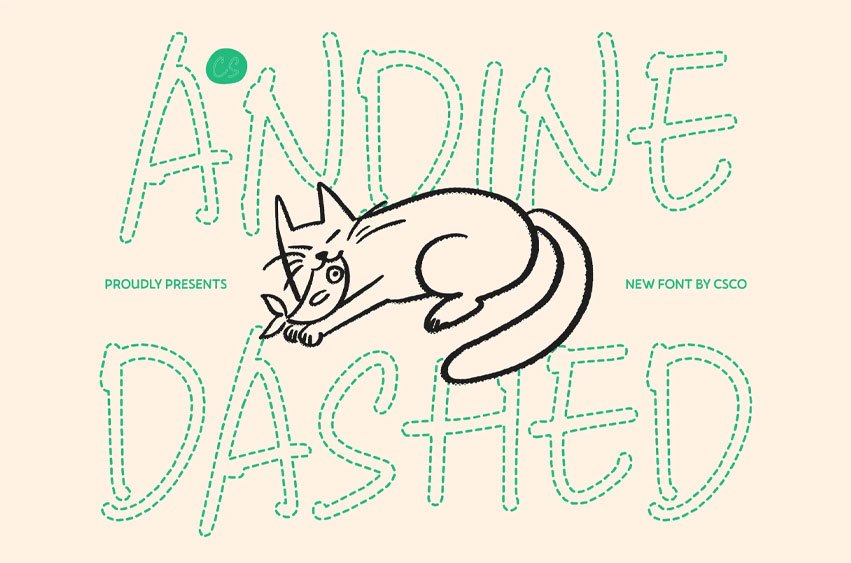
Andine Dashed Font Natural Expression with Handcrafted Charm Organic Handwriting with Airy Dashed Flow This font captures the beauty of natural handwritten sans serif through organic strokes and expressive rhythm. Its defining dashed construction formed from soft, broken segments adds a light, breathable texture that mimics the natural lift of a pen. Each letter feels spontaneous, lively, and full of personality, bringing an authentic handmade touch to your designs.
Handcrafted Texture for Genuine Character The combination of flowing forms and subtle imperfections creates a warm and approachable aesthetic. The dashed strokes enhance this effect, giving the font a relaxed, artistic quality that feels both modern and human. It’s perfect for designs that aim to communicate sincerity, creativity, and individuality.
Versatile for Artistic and Personal Projects This font adapts beautifully across a wide range of uses from branding and crafts to lifestyle products and editorial layouts. Its expressive dashed lines work well in both modern and rustic themes, offering flexibility while maintaining a distinctive, personal voice.
Where Simplicity Meets Personality Blending clean sans serif structure with handwritten charm, this font delivers a style that is warm, creative, and unmistakably personal. The airy dashed detailing transforms simple text into an engaging visual experience perfect for adding a touch of humanity and artistry to any design.